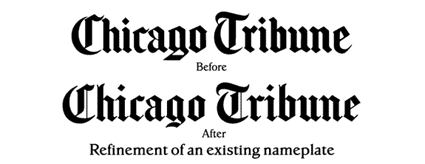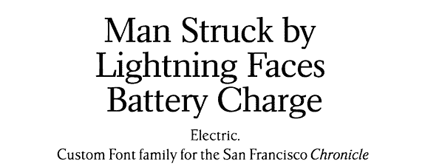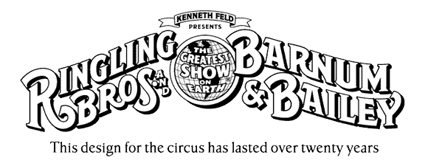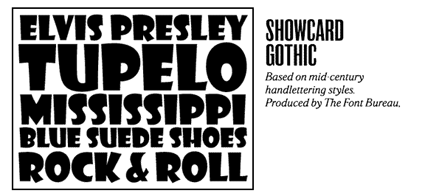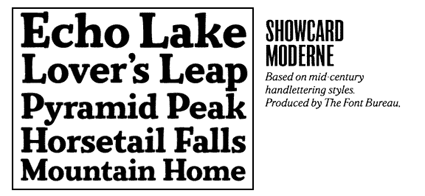
dot-font: Logo Designer Jim Parkinson Sets Type First
Inspired by early American signage and lettering, Jim Parkinson puts his stamp on the nameplates and logos of newspapers and magazines. John D. Berry looks closer.
Lettering artist Jim Parkinson, whose work you see all around you in famous logos on newspapers and magazines, has recently revamped his elegant little Web site.
It's a simple, effective way of showing off his work (which of course is the main point); presenting itself with the straightforwardness of sign painting and the retro sensibility of old American lettering and printing books. Sort of like Parkinson's work -- and Parkinson himself.
Jim Parkinson infuses modern designs with a retro sensibility.
Master of the Typographic Logo
Jim Parkinson specializes in designing typefaces and typographic logos; he's been practicing in Oakland, California, for the last 25 years, and currently calls his business Parkinson Type Design. His clients tend to be high profile. Not only can you see his hand in the logos of many of the most popular magazines in America, but he also designed the logo for Ringling Bros. and Barnum & Bailey Circus (as well as for several models of Specialized Bicycles, including the original StumpJumper and RockHopper). Always, these identifying marks are primarily typographic.
Parkinson has designed or re-designed logos for "Newsweek," "Rolling Stone," "Sierra," "Parenting," "Esquire" (with Roger Black and Ann Pomeroy), the "National Post," the "Atlanta Journal," and the "San Francisco Examiner" –these and many more are displayed on his Web site. He makes interesting distinctions among his projects: some are original designs, some are reworkings of existing designs, some are "restoration" work. It depends, I suppose, on the degree of original design involved. He is often called in to update or modify an old logo, perhaps one that's been through several small degradations in the course of its history and now needs some sprucing up. Other times a publication wants a new look -- but still in the spirit of the old.
Although details are sparse on his site, Parkinson does give a brief description of what each logo design is -- and in the case of revisions or restorations, he often shows a "before" and an "after" shot, which is educational. It's fascinating, for instance, to catalog the changed details in the Chicago Tribune job, a "refinement of an existing nameplate." Subtle changes make a big difference.
Typefaces for Publication Designers
Parkinson's typefaces are generally meant for display, and they are always extremely useful additions to the typographic palette of a publication designer. He has created display typefaces for "Rolling Stone," "Newsweek," the "New York Times Magazine," and the "San Francisco Chronicle," as well as commercial typefaces for Font Bureau, FontShop, Adobe, and ITC.
(I remember writing about one of his typefaces, ITC Roswell Two, in U&lc. He had done two earlier versions, ITC Roswell Three and Four, which were two widths of very, very tall, thin, condensed sans-serif typefaces in the 19th-century grotesque tradition. Roswell Two was an even more extremely condensed variation -- you couldn't imagine using it for letters less than an inch or two high -- which he called number Two because "I had some insane idea that I might want to make a lighter one." He added: "I have since come to my senses." So far, his senses on this topic have not deserted him.)
Showcard Gothic and Showcard Moderne (both available from Font Bureau) might be emblematic of Parkinson's type designs -- the one bulb-topped and showy, like a Betty Boop cartoon, the other a strong serif face that looks as if it had been handlettered in the '30s -- and showing, too, one of the sources of Parkinson's inspiration: the "showcard" lettering of the first third of the last century.
Parkinson was also one of the members of the design team that created ITC Bodoni, a very ambitious type family in three optical sizes (6 point, 12 point, and 72 point) that was based not on the various 20th-century Bodoni revivals but on Giambattista Bodoni's original designs, from the turn of the 19th century. (The other designers were Janice Prescott Fishman, Holly Goldsmith, and Sumner Stone; Stone art-directed the project.)
Precision Retro
His sensibility is definitely centered in the world of wood type and signage from a hundred years ago. I have seen Jim Parkinson bidding fiercely at an ATypI auction for a specimen book showing display lettering styles of the early 20th century -- not just for the love of the letterforms but, no doubt, for inspiration in future type design as well.
Parkinson's lettering is never sloppy or slapdash. His wildest display faces are usable in practical work, and his logo designs invariably convey the feeling intended and work in the media they were designed for.
And his work always seems to embody a sense of humor. He is clearly enamored of the old style of type specimens that made up plausible but unlikely headlines to show off each size of a typeface. The ones on some of the type-sample pages on his site are so carefully double-edged that I have to suspect that they may be real. ("TREES CAN BREAK WIND." "DEAD MAN FOUND IN CEMETERY.")
Next time a magazine or newspaper comes in the door, I'm going to be looking at its logo and display type very closely, trying to detect the fine hand of Jim Parkinson.